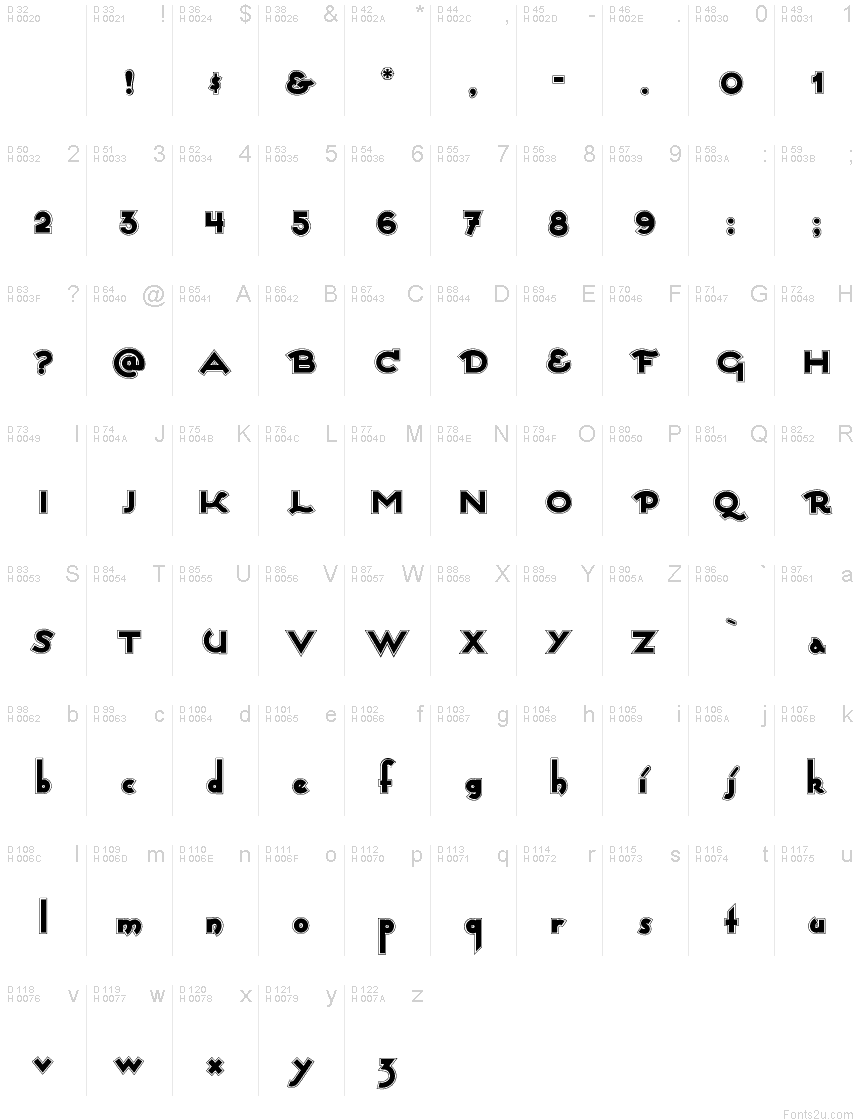
CaptainSwabby
Captain Swabby font by Nick Curtis is a free decorative display typeface that brings a cheeky pirate flair to your layouts. Chunky letterforms with bold outlines and a hint of shadow feel like they’ve been cut from thick cardboard, giving headlines a tactile, poster-like presence. The rounded corners and jaunty rhythm keep it lighthearted, more treasure map party than gritty seafaring saga.
Using Captain Swabby, you can instantly brand kids’ pirate parties, themed posters, book covers, game titles, stickers, and playful logos with a consistent nautical voice. This free font shines at larger sizes where its layered edges and cartoonish swagger can breathe. Pair it with a clean geometric sans for body copy, and let Captain Swabby steer the headlines, banners, and accent text.